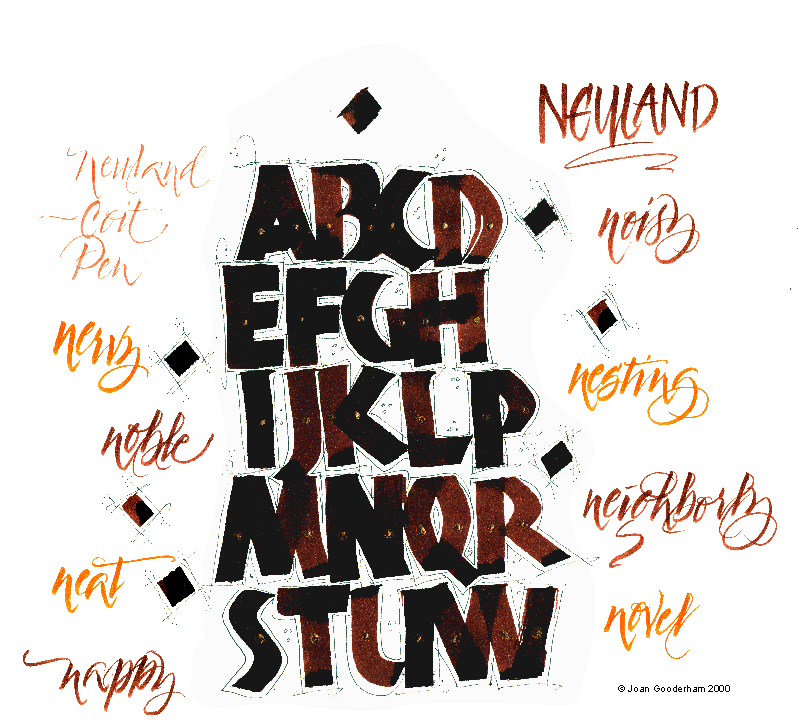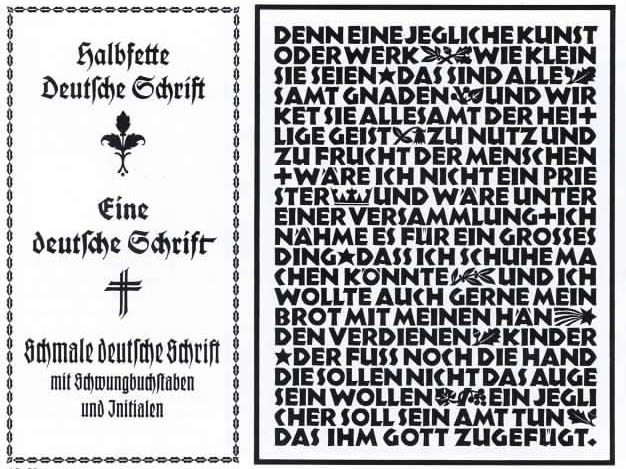
Commentary April 20, 2004 Koch Neuland |
In 1923, Rudolf Koch chiseled an all caps face directly
from metal and called it Neuland (Gebr. Klingspor).
This experimental face has been copied and revived over
and over again. It was even used as the
face for Jurassic Park. A non-exhaustive list includes
Some versions |
¶ Shown are some of the versions of Koch's Neuland. Indeed, there is no true "original", because each of Koch's type sizes comes with its own peculiarities (recall that each was cut directly in metal). The Linotype version, which is supposed to be the digital counterpart of the "original", is a bit too "clean". The Softmaker face, N691 Deco, is probably closer to Koch's original cuts, as most of Softmaker's historical faces aspire to be true revivals. However, only AINeuland and Ffd Neuland have the pointy M's that we find in the "Encyclopedia of Typefaces" of Jasper, Berry and Johnson, so go figure. The P22 face and Klein's face have K's with horizontal right upper arms and U's that hang together similarly, so they are in a category by themselves and one may well have inspired the other. |
The pics below show
the original Koch Neuland from 1923,
and a fun calligraphic play by Joan Gooderham in 2000.